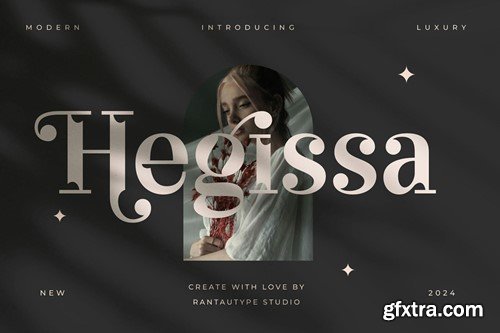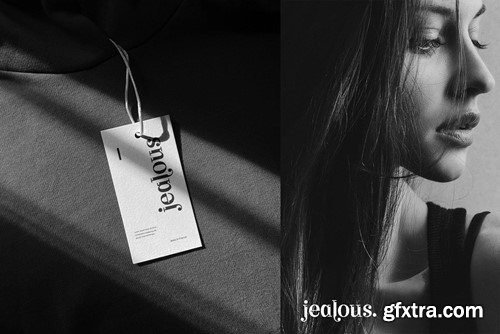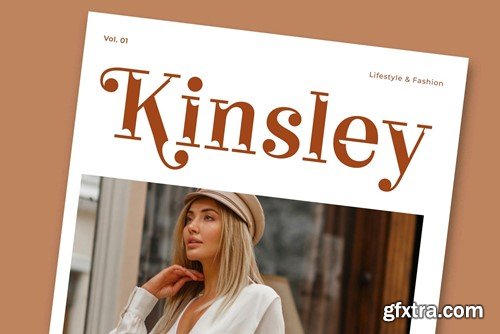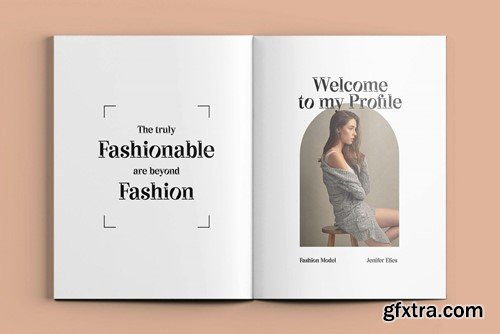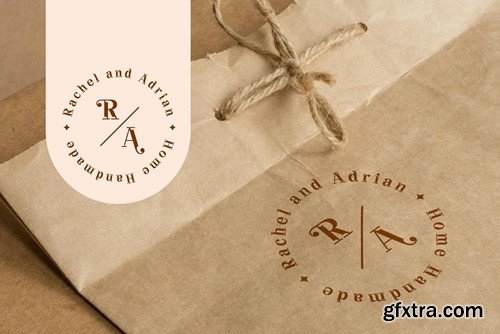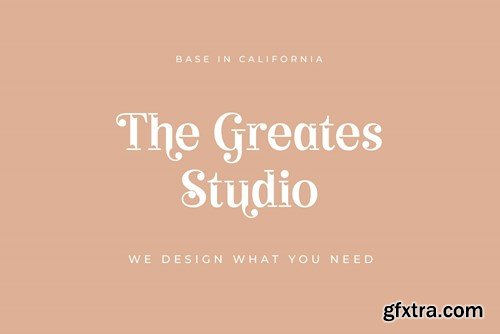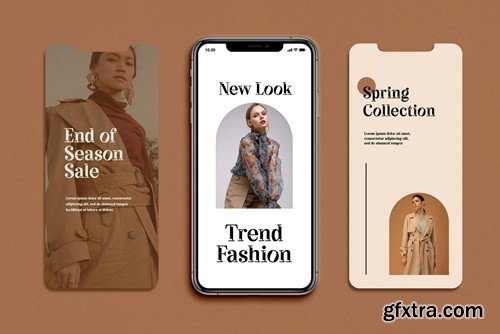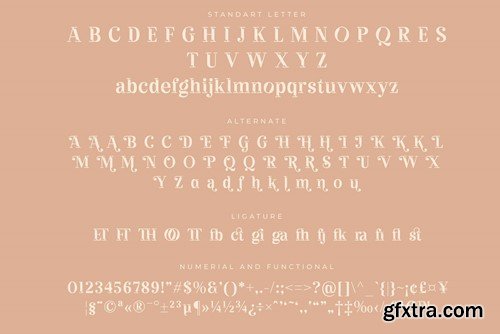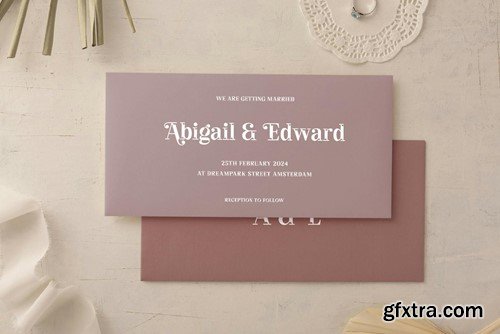
Hegissa Elegant Serif字体GB7MLFD
Hegissa is a modern serif font with unique shape. Hegissa inspired by elegant brand and beautiful concept, targeting a luxury-forward mentality with subtle curves to make it elegant and fashionable. We love how Each character is formed from a unique shape to create a memorable and luxurious impression . Hegissa come with alternate, ligature and already support multingual accent character. Hegissa is a beautiful choice for any creative endeavor, chic, lifestyle design such as logos, title, watermark on photography, cover, branding, display and magazine, wedding event, corporate brand, quotes, album cover, business card, business project and many other design project. Hegissa here to elevate you workl!!! Features: File include: Multilinggual Langguage support: Afrikaans, Albanian, Asu, Basque, Bemba, Bena, Breton, Chiga, Cornish, Dutch, English, Estonian, Filipino, Finnish, Friulian, Galician, Gusii, Indonesian, Irish, Italian, Kabuverdianu, Kalenjin, Kinyarwanda, Luo, Luxembourgish, Luyia, Machame, Makhuwa-Meetto, Makonde, Malagasy, Manx, Morisyen, North, Ndebele, Nyankole, Oromo, Portuguese, Quechua, Romansh, Rombo, Rundi, Rwa, Samburu, Sango, Sangu, Scottish, Gaelic, Sena, Shambala, Shona, Soga, Somali, Spanish, Swahili, Swedish, Swiss, German, Taita, TesoUzbek (Latin), Volapük, Vunjo, Zulu Thank you for visit our store and Hope you enjoy our font!!